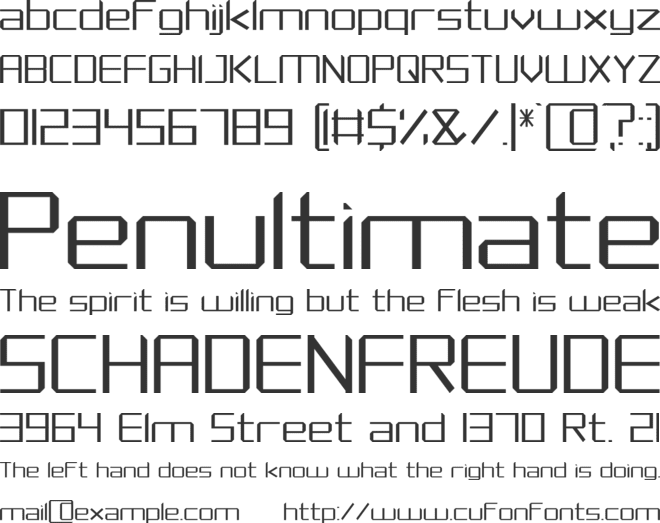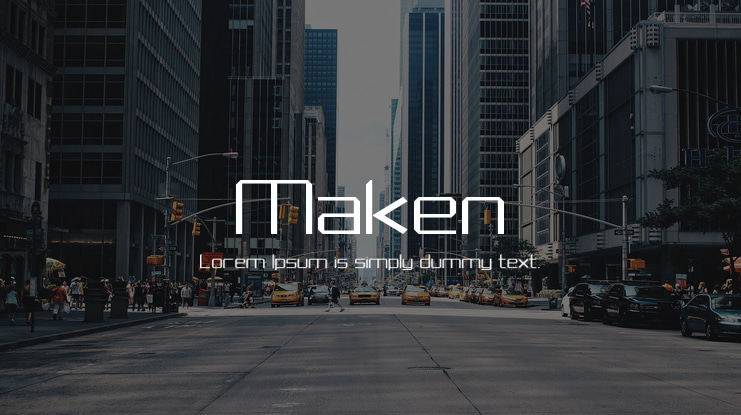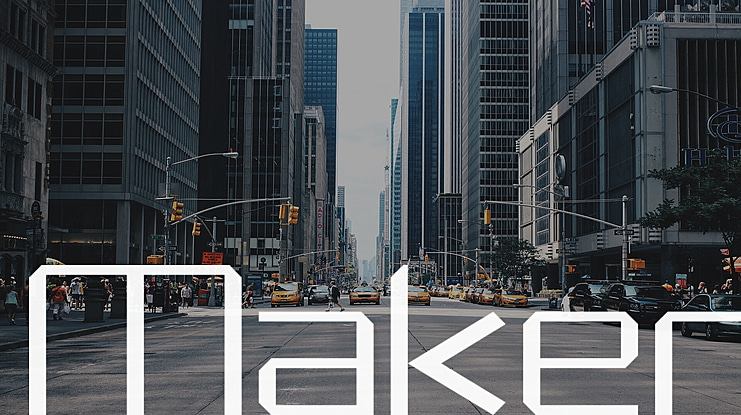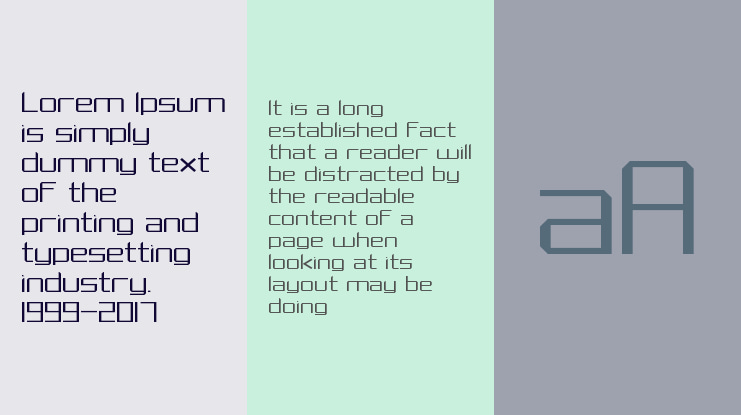
Maken Font
This typography was created based the machine structures, the angles make 45º and 90º for simulated artificial and industry design, this typography is part of big Maken typography design.